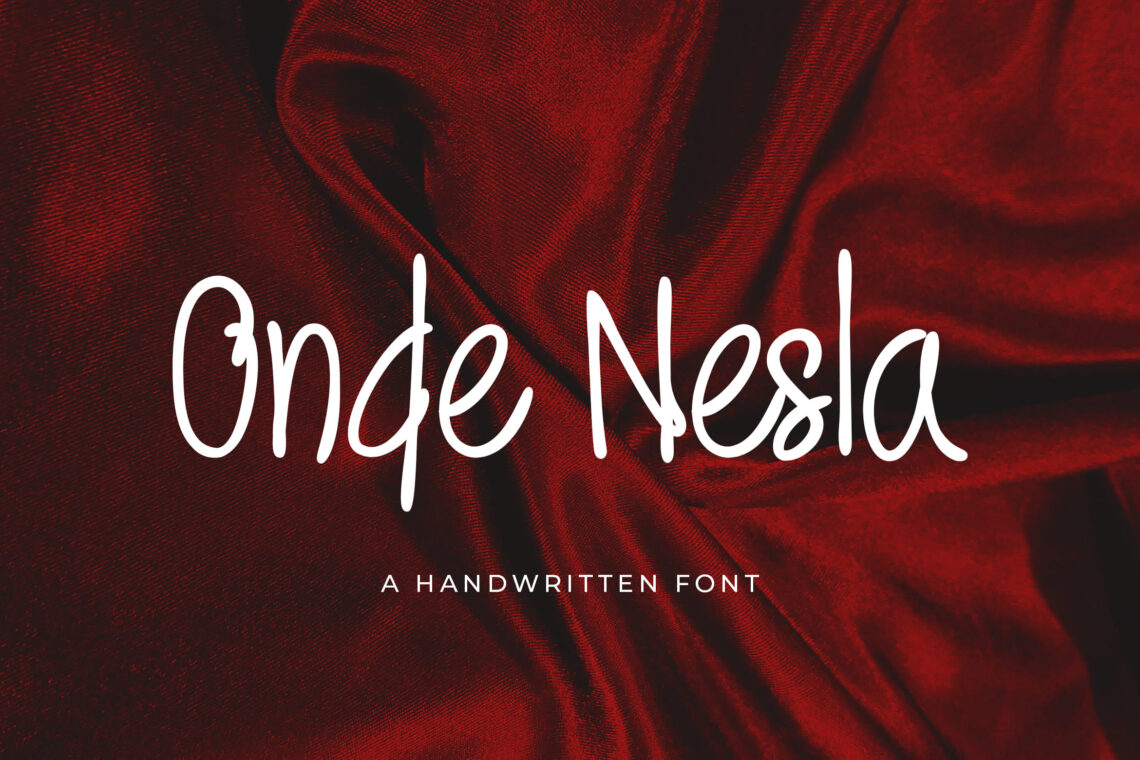
Typography continues to be a driving force behind modern design, influencing everything from branding to social media content. As creative trends shift in 2025, fonts are no longer chosen solely for readability—they are selected for the mood and message they convey. The font aesthetic 2025 is all about bold personality, minimal elegance, and nostalgic revival, blending artistic expression with clean visual appeal.
10 Best Font Aesthetic in 2025
In this article, we explore ten typefaces that perfectly capture the essence of font aesthetic 2025, offering designers a fresh toolkit to elevate their visual storytelling.
1. Thunderland Brush Handwritten Font
Thunderland Brush Handwritten Font is a bold and dynamic typeface that combines the raw energy of brush strokes with the personal touch of handwritten lettering. Designed to make a statement, this font is perfect for eye-catching headlines, branding projects, apparel designs, music posters, social media graphics, and more. With its edgy, handcrafted style and natural flow, Thunderland adds a sense of motion and personality to any creative work. Whether you’re going for urban cool, artistic flair, or a rebellious vibe, this font brings intensity and character that stands out in both print and digital formats.
2. Samurai Shadow Brush Handwritten Font
Samurai Shadow Brush Handwritten Font is a fierce and artistic typeface inspired by the bold spirit of traditional Japanese brushwork and the mystique of samurai aesthetics. With dramatic strokes, sharp edges, and an organic handwritten flow, this font is perfect for posters, apparel, logos, game titles, martial arts branding, and creative projects that need a powerful visual impact. Samurai Shadow captures strength and motion in every letter, combining authenticity with modern edge. Whether you’re designing for an action-packed brand or an expressive art piece, this font brings a bold identity that commands attention.
3. Right Flower Brush Handwritten Font
Right Flower Brush Handwritten Font is a beautifully expressive typeface that blends the charm of natural brush strokes with the elegance of handwritten lettering. Its organic curves and fluid movement give it a graceful, romantic feel—making it perfect for wedding invitations, branding, greeting cards, packaging, social media posts, and other creative projects. Right Flower radiates warmth and personality, offering a balance between artistic freedom and refined beauty. Whether you’re creating heartfelt messages or stylish designs, this font adds a touch of softness and creativity that blossoms on every page.
4. Onde Nesla Handwritten Font
Onde Nesla Handwritten Font is a chic and modern typeface that captures the natural rhythm of authentic handwriting with a refined, personal flair. Its smooth curves, elegant flow, and subtle imperfections make it ideal for branding, logos, fashion editorials, packaging, wedding designs, and lifestyle content. Onde Nesla delivers a sense of sophistication with a handmade touch—perfect for creatives who want to add character and warmth to their designs. Whether used for headlines or signatures, this font brings your words to life with charm and creative energy.
5. Monica Mirabelle Handwritten Script
Monica Mirabelle Handwritten Script is a delicate and elegant typeface that brings a personal, feminine touch to any design. With its flowing curves, gentle strokes, and stylish ligatures, this script font is perfect for wedding invitations, branding, fashion lookbooks, social media quotes, and beauty packaging. Monica Mirabelle captures the essence of hand-penned sophistication—balancing modern grace with classic charm. Whether you’re crafting a heartfelt message or building a luxurious visual identity, this font adds a refined softness and timeless elegance to every creative project.
6. Marcovira Brush Font
Marcovira Brush Font is a dynamic and energetic typeface that blends raw brush textures with bold, handcrafted style. Its rugged strokes and expressive flow make it perfect for creative projects that demand personality and impact—like music posters, apparel designs, branding, streetwear, and social media graphics. Marcovira delivers a modern urban vibe with an artistic edge, allowing your message to stand out with confidence and character. Whether you’re designing for bold headlines or edgy logos, this font brings an untamed, fearless aesthetic that commands attention.
7. Mahenizar Brush Handwritten Font
Mahenizar Brush Handwritten Font is a bold and artistic script that captures the raw energy of brush strokes with the elegance of handcrafted lettering. Its textured, flowing style adds personality and movement to every design, making it ideal for branding, merchandise, social media graphics, music covers, and poster designs. Mahenizar blends urban edge with creative flair, delivering an expressive look that’s both powerful and personal. Whether you’re aiming for a street-smart aesthetic or an artistic, free-spirited vibe, this font brings your words to life with bold confidence.
8. Jaqueline Handwritten Font
Jaqueline Handwritten Font is a graceful and feminine script font that captures the charm of authentic handwriting with a luxurious, modern twist. Its flowing lines, delicate curves, and smooth ligatures make it perfect for wedding invitations, personal branding, boutique logos, social media quotes, and upscale packaging. Jaqueline exudes warmth and sophistication, adding a soft yet stylish touch to any design. Whether you’re crafting a romantic message or elevating a visual identity, this font brings elegance and personality that feels both timeless and fresh.
9. Jackson Amor Handwritten Script